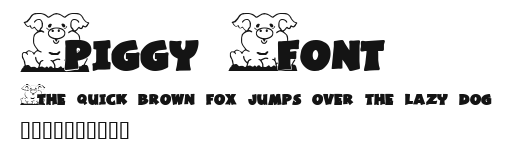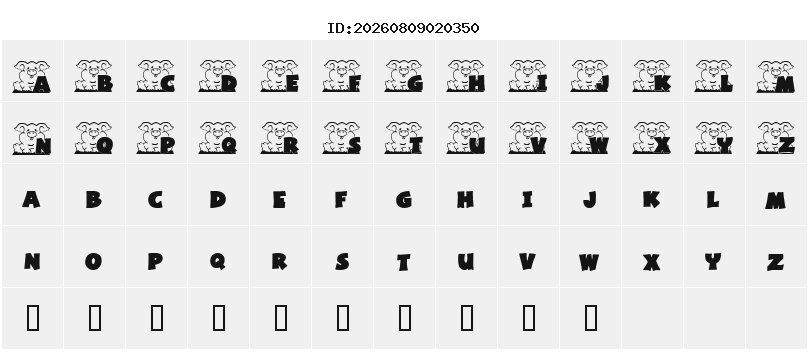
• Font Name: Piggy Font
• Full Font Name: Piggy Font
• Designer: FontParty!
• Description: This font uses the "Basic Font" from Ouvrez!!! Police!!!
About Piggy Font.ttf
Piggy Font.ttf is a modern, elegant sans-serif font designed for ultimate readability and visual harmony. Perfect for branding, headlines, web design, and print materials.